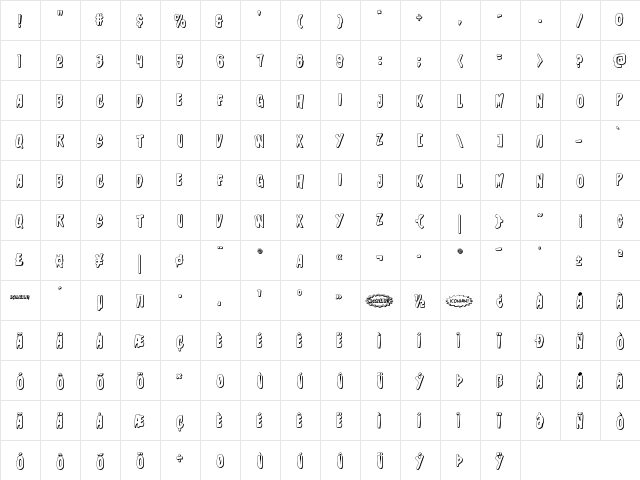
Charmling 3D Regular Font Preview
Charmling 3D Regular
Design Context for Charmling 3D Typeface
Charmling 3D is a composed and adaptable typeface that performs quietly and consistently across a wide range of design contexts.